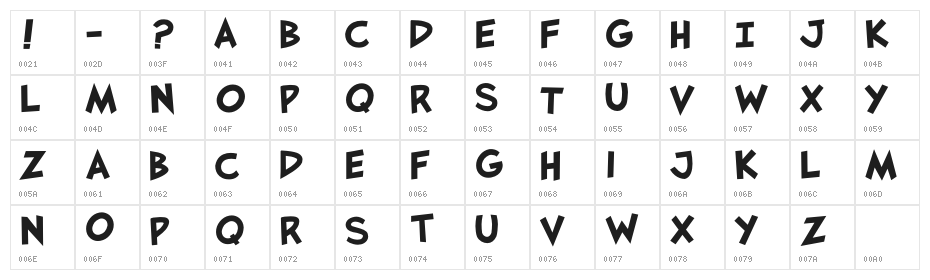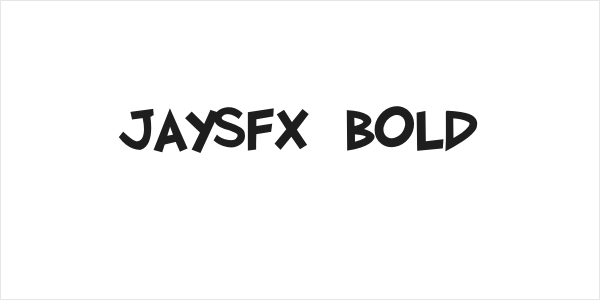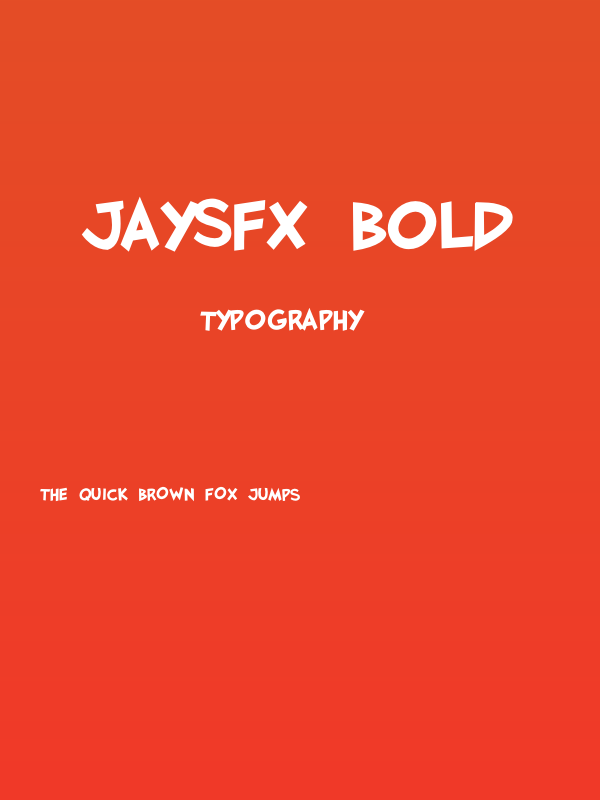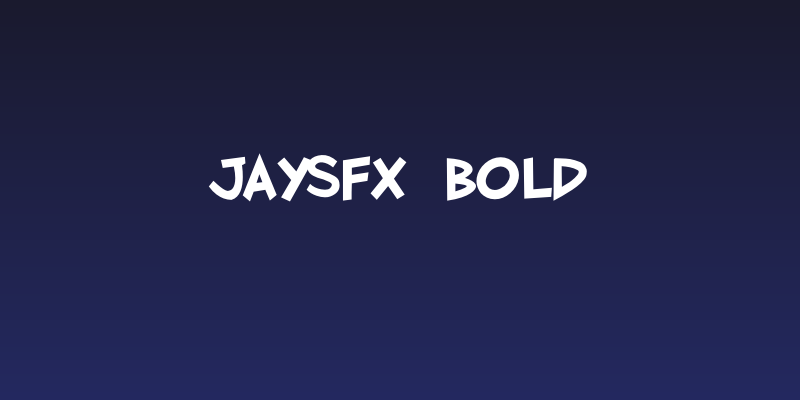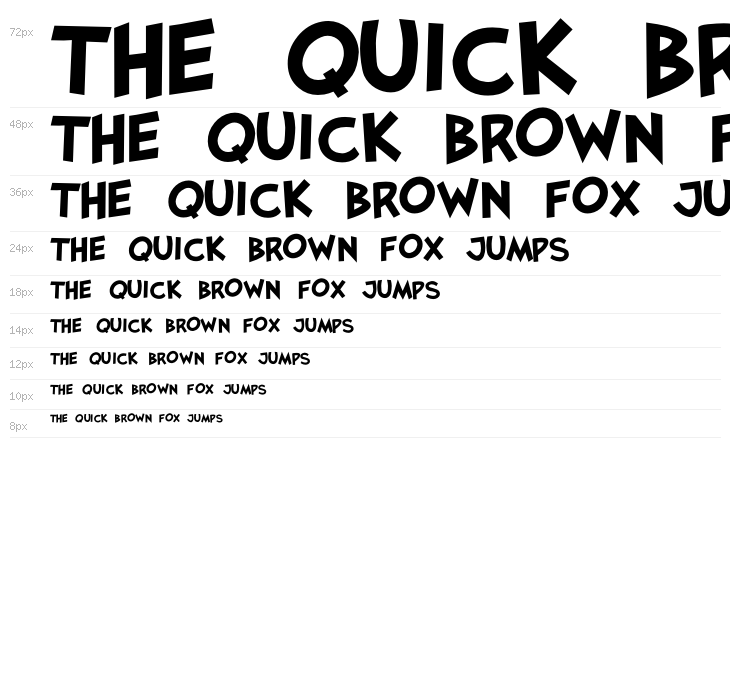
JaySFX Bold Font
JaySFX Bold Description
This font features a bold and dynamic style with a playful and energetic appearance. The letters are slightly slanted, giving a sense of movement and excitement. The strokes are thick and consistent, providing a strong visual impact. The characters have a hand-drawn feel, with irregular edges that add to the casual and informal vibe. This font is perfect for projects that require a fun and lively touch, such as children's books, comic strips, or playful branding. The overall design is both eye-catching and approachable, making it suitable for a variety of creative applications.
| Overall Style | Playful, Energetic, Casual |
| Proposed Projects | Ideal for children's books, comic strips, playful branding, and creative posters. |